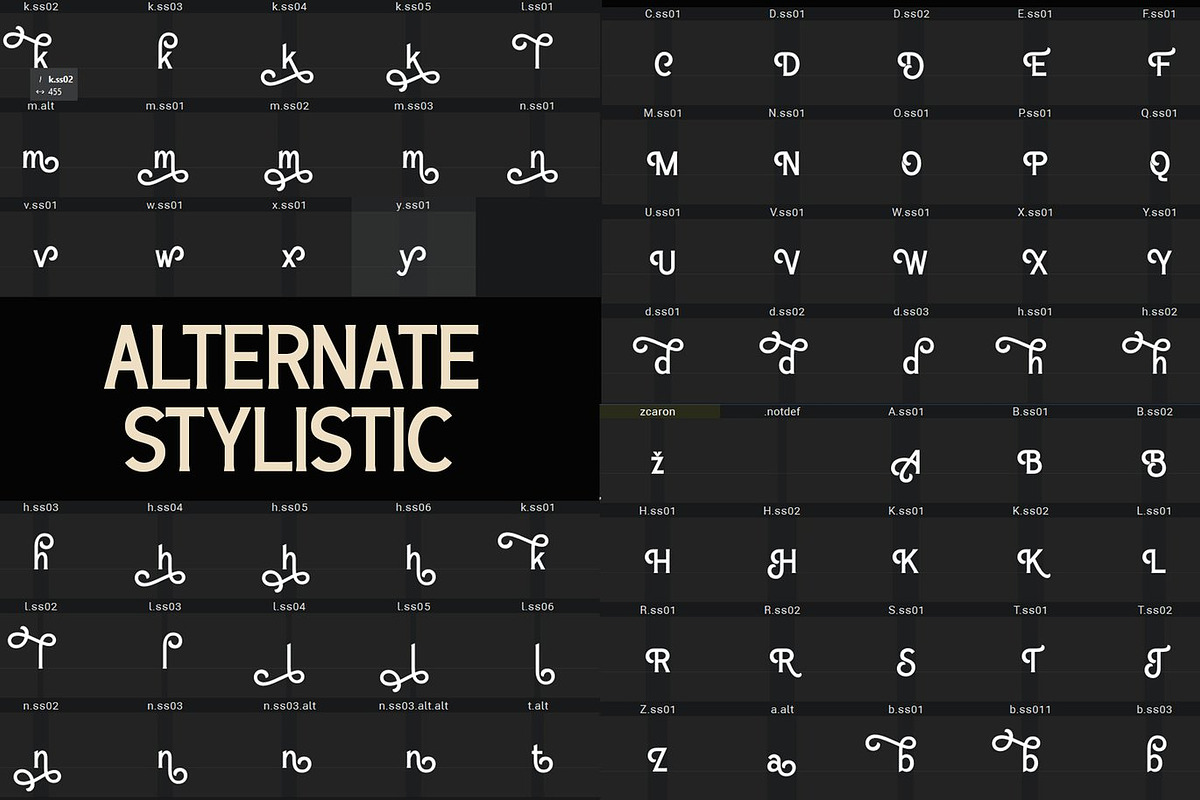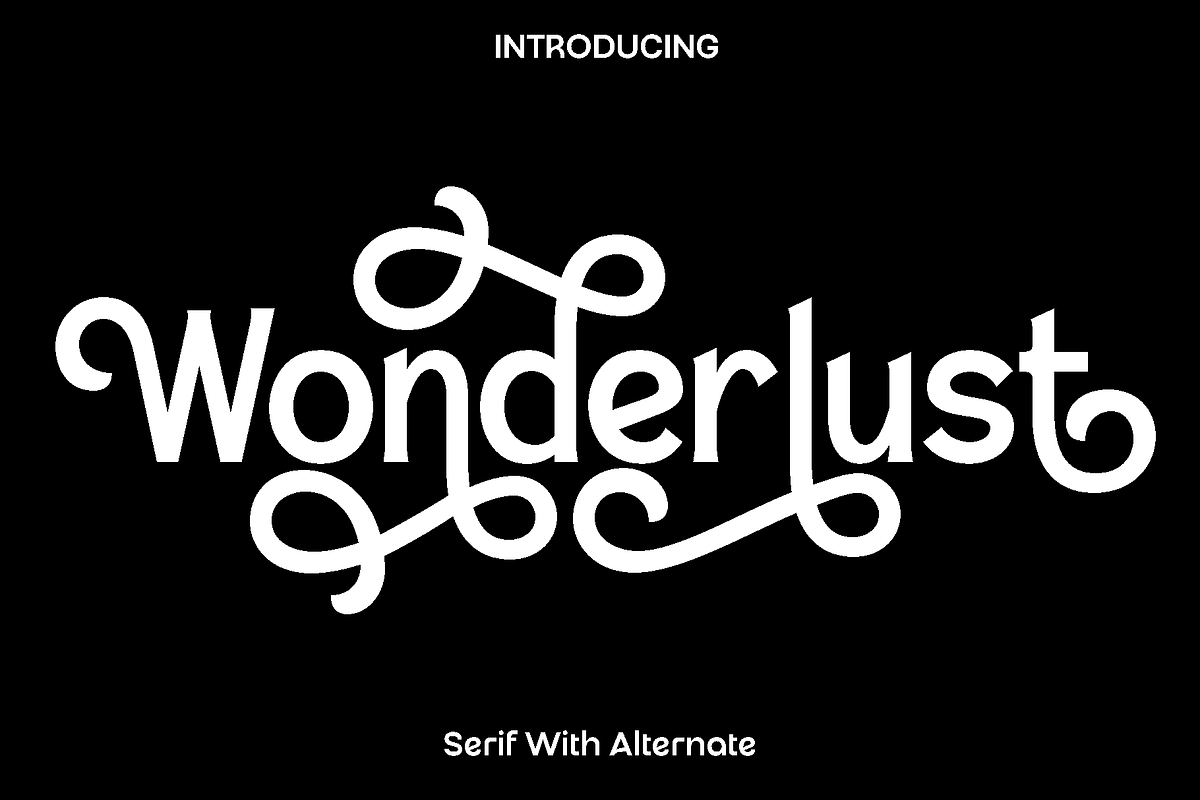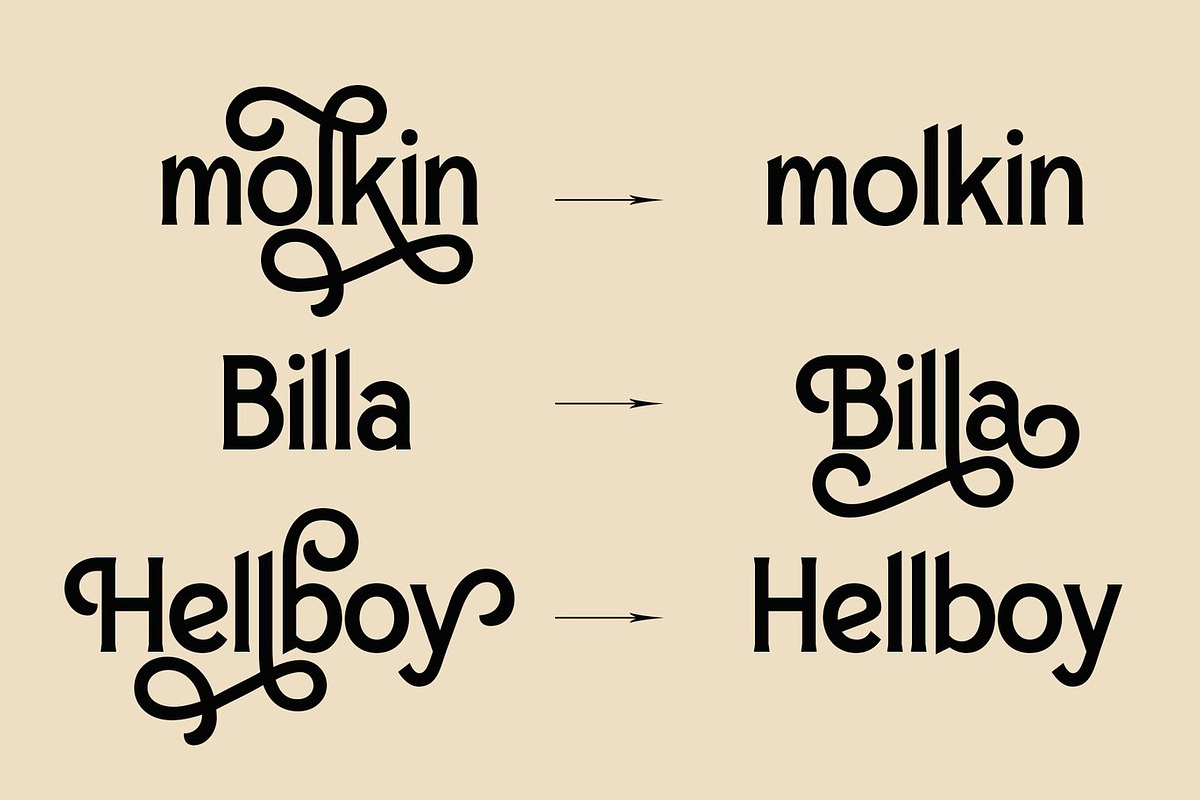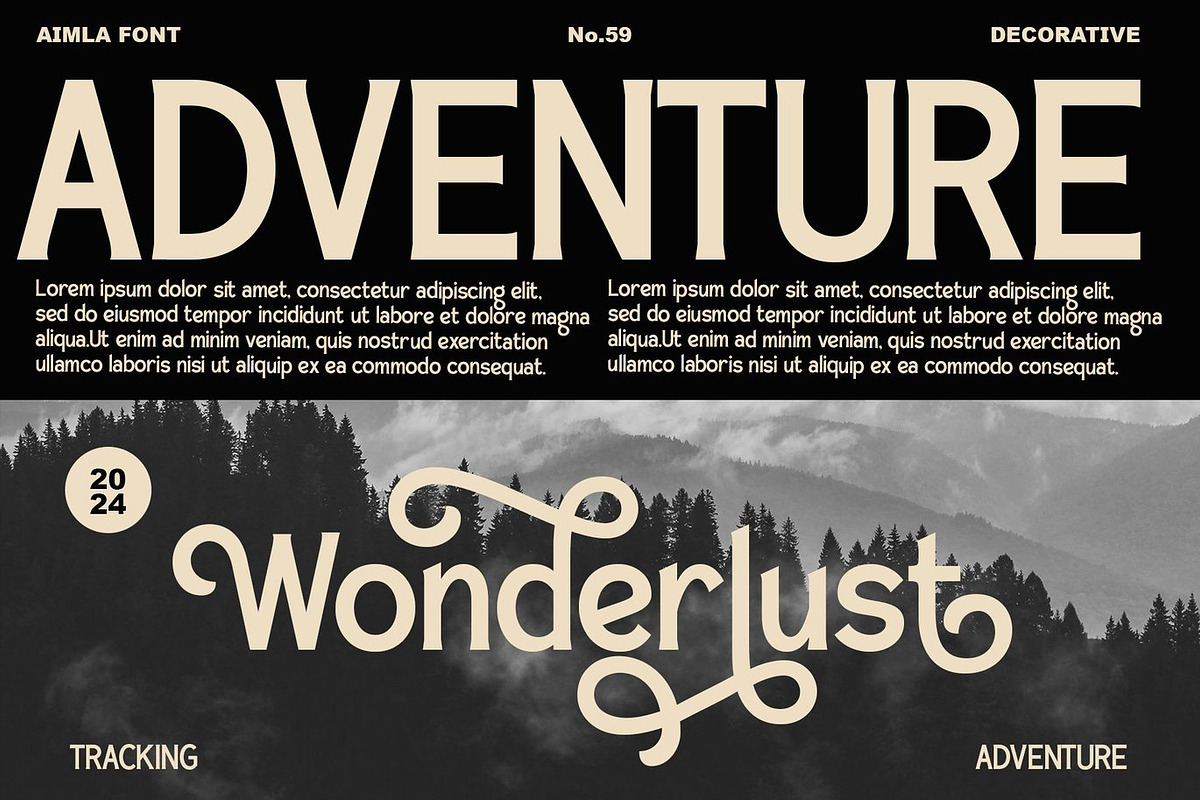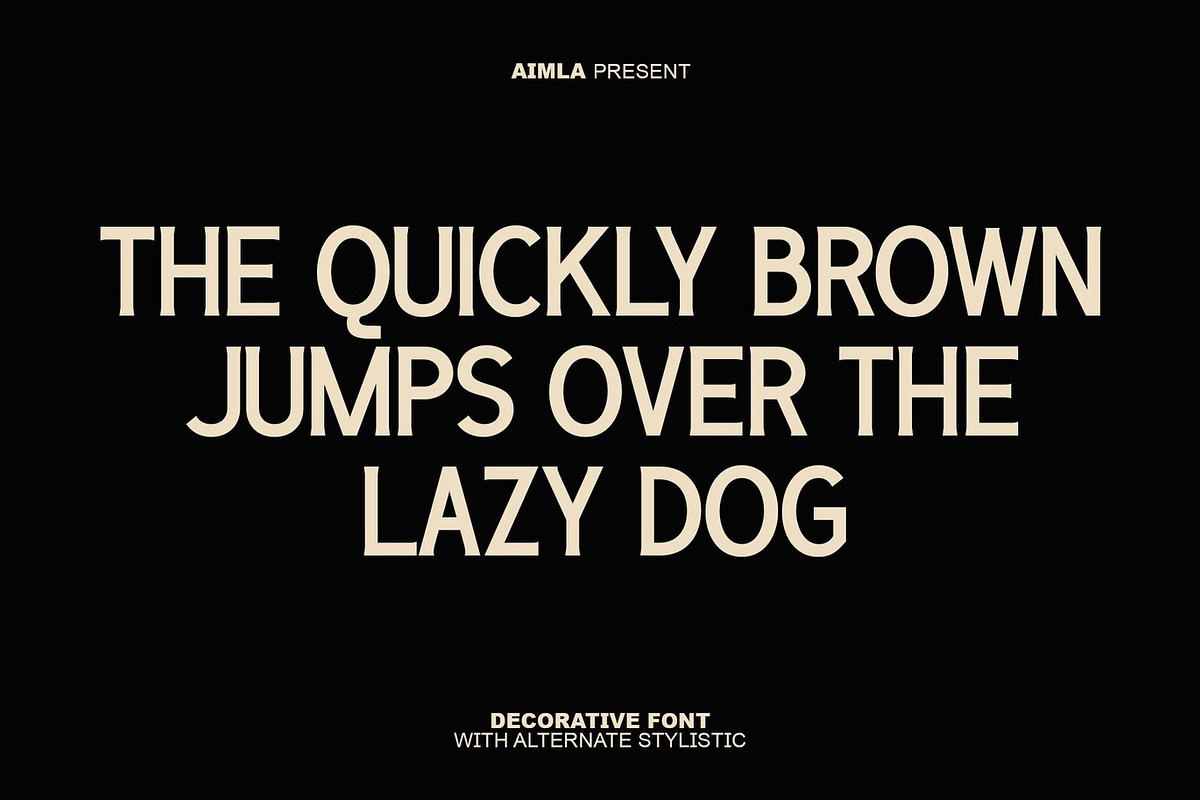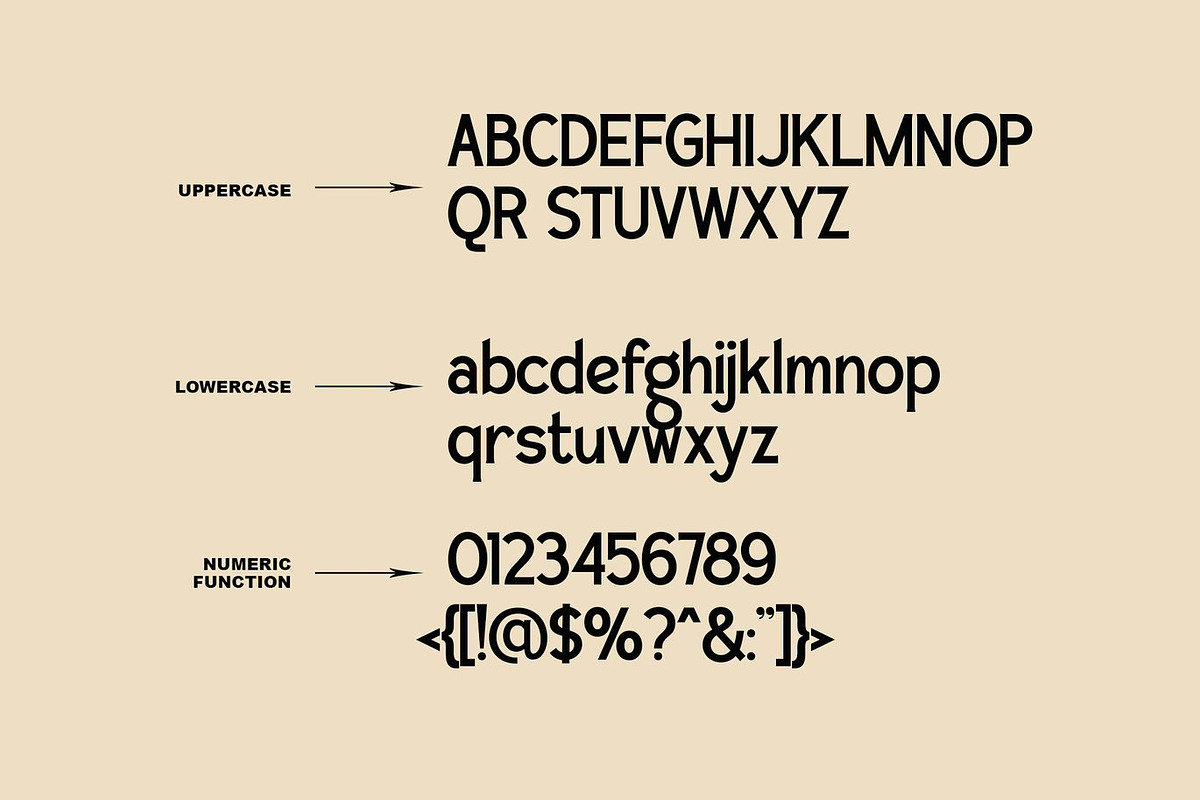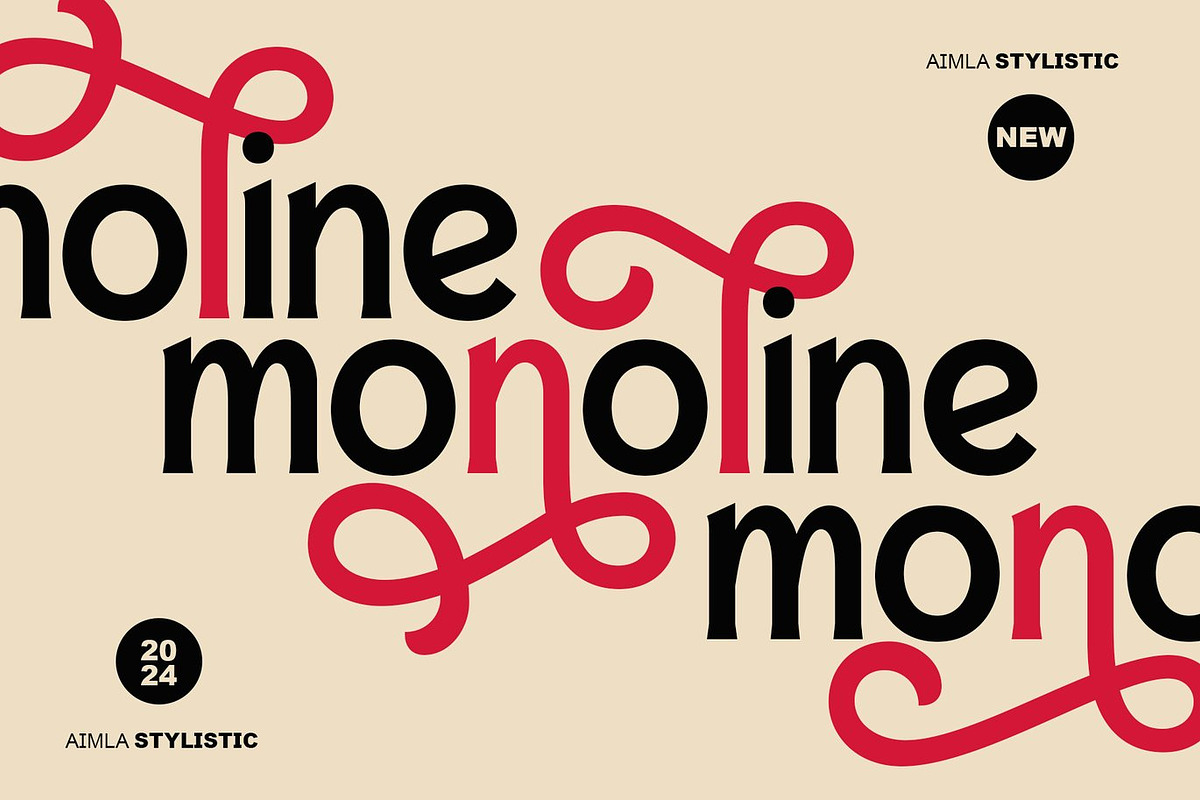
Wonderlust - Serif With Alternate
Wonderlust is a beautifully crafted display font designed to capture a sense of creativity, elegance, and visual exploration. Inspired by modern editorial design and expressive typography, Wonderlust combines stylish letterforms with balanced proportions to create a font that feels both sophisticated and approachable. Each character is carefully designed to deliver clarity and charm, allowing your text to stand out while maintaining a refined aesthetic.
Wonderlust shines across a wide variety of creative projects. It is an excellent choice for books, magazines, branding, logos, photography overlays, quotes, blog headers, posters, and advertising designs. Whether used for bold headlines or stylish typographic compositions, this font adds personality and a polished appearance that enhances the overall design.
The beauty of Wonderlust lies in its versatility. Its clean structure and elegant style allow it to adapt easily to both modern and classic design themes. Designers can create eye catching layouts, memorable branding, and engaging visual storytelling with ease. The stylistic alternates also provide additional flexibility, helping you craft unique lettering combinations that bring originality to every project.
Designed for creators who value both style and usability, Wonderlust offers a smooth balance between artistic expression and readability. It works seamlessly across digital and print media, making it a reliable addition to any designer’s font collection.
Wonderlust Font Features:
• Uppercase and lowercase characters
• Numerals and functional punctuation
• Stylistic alternates for creative flexibility
• Multilingual support
• OpenType features